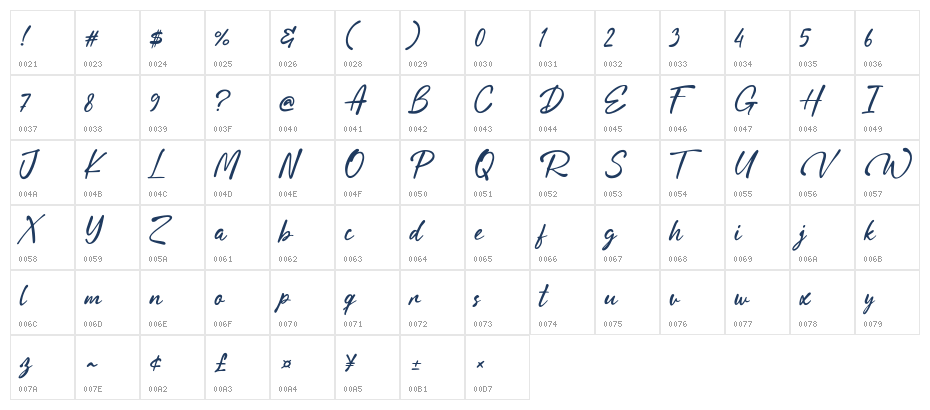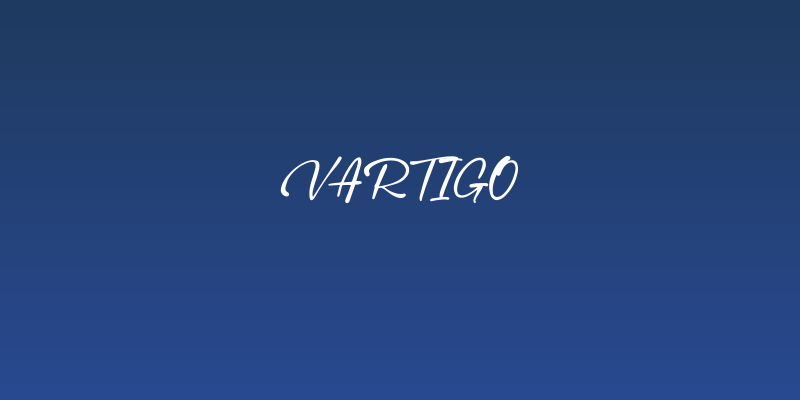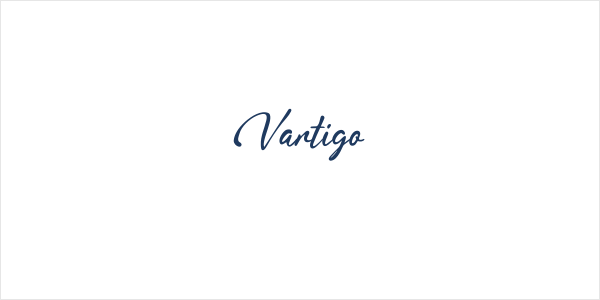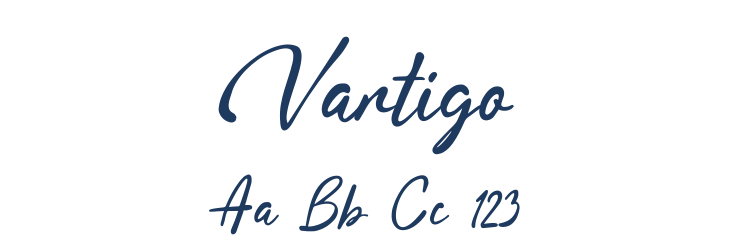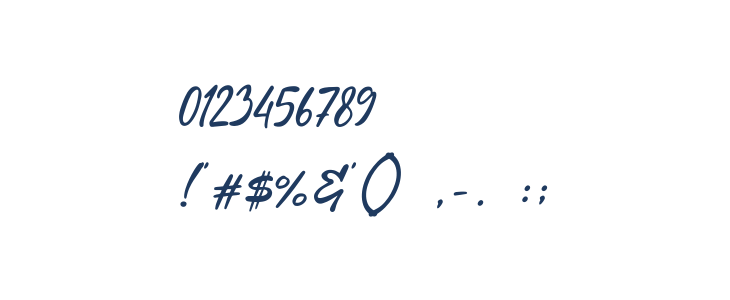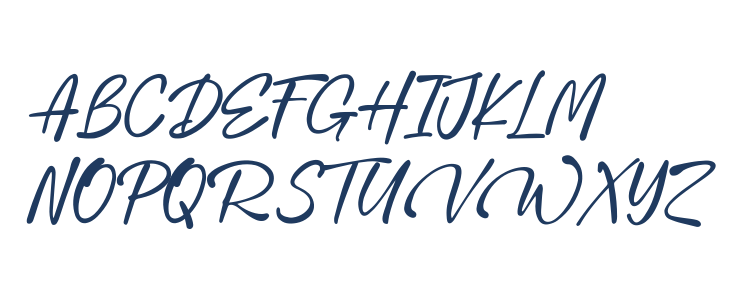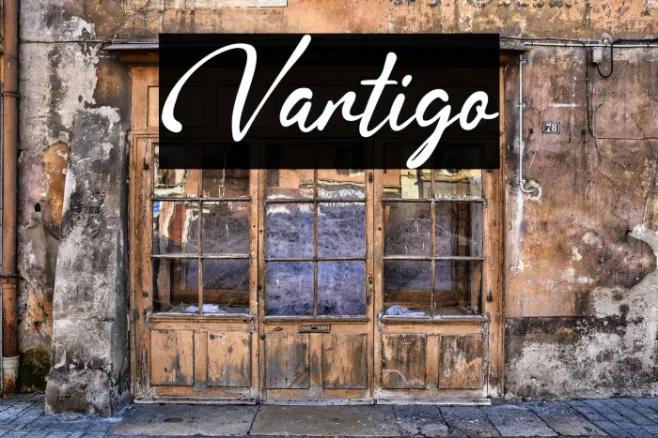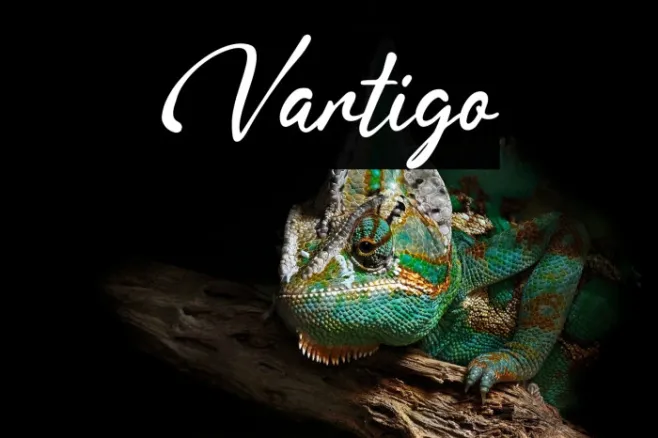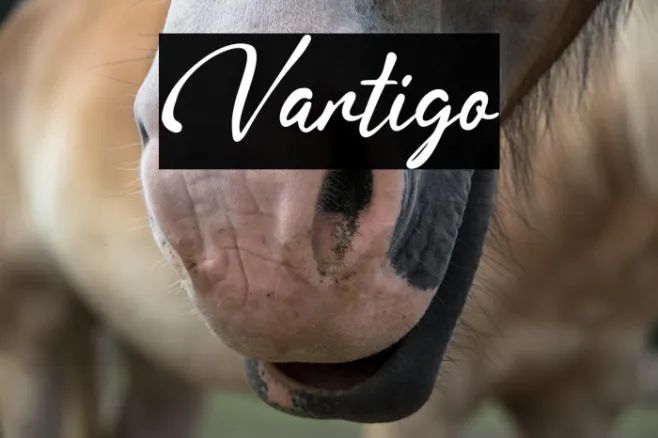
Vartigo Font
Vartigo Description
A casual, handwritten script font with a smooth, flowing style, featuring both uppercase and lowercase letters, numerals, and common punctuation.
| Overall Style | Casual, Handwritten |
| Use Case | Personal projects, branding, invitations, social media |